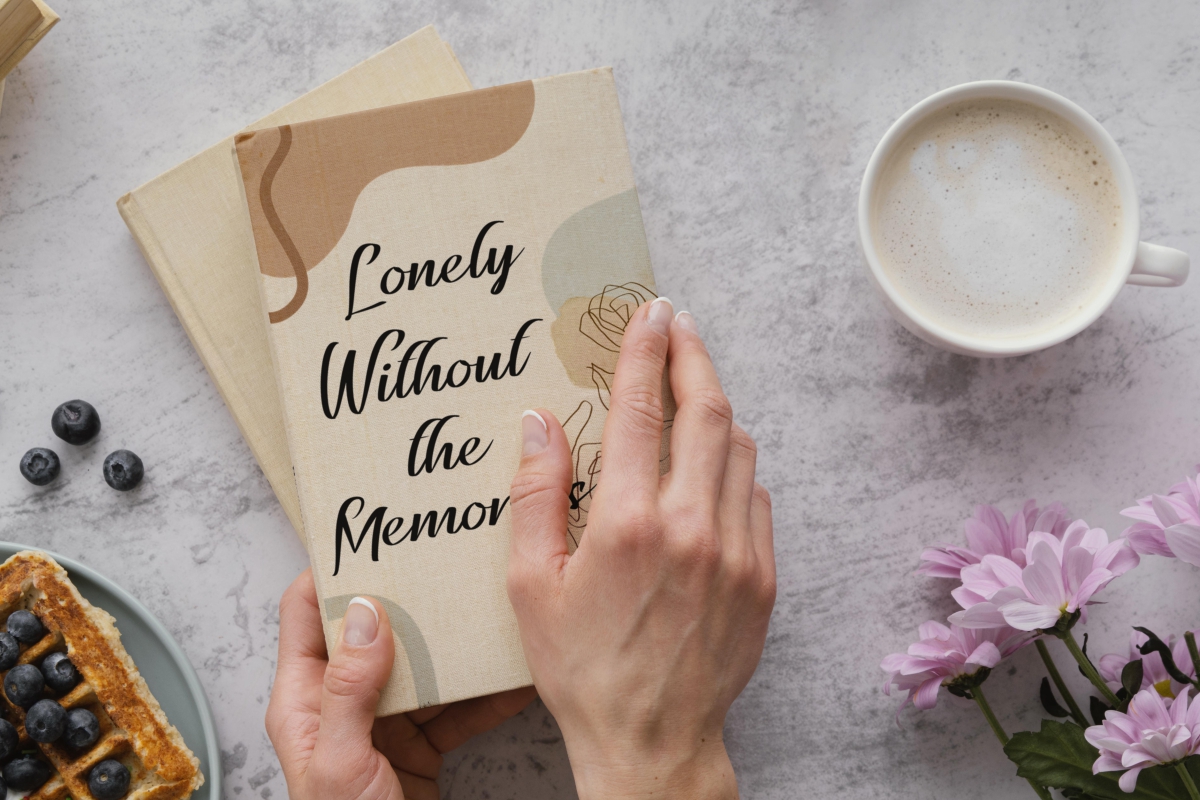
Charlie Kayden Font
Charlie Kayden Script Font
It’s a stylish calligraphy script font that comes with elegant characters, making it the ideal match for many projects. The font combine classy , casual and modern cursive hand-lettered letters. This font has a wide spectrum of applications that will suitable for many business or projects including : cosmetic product, houseware, wedding invitations, romantic movies, etc